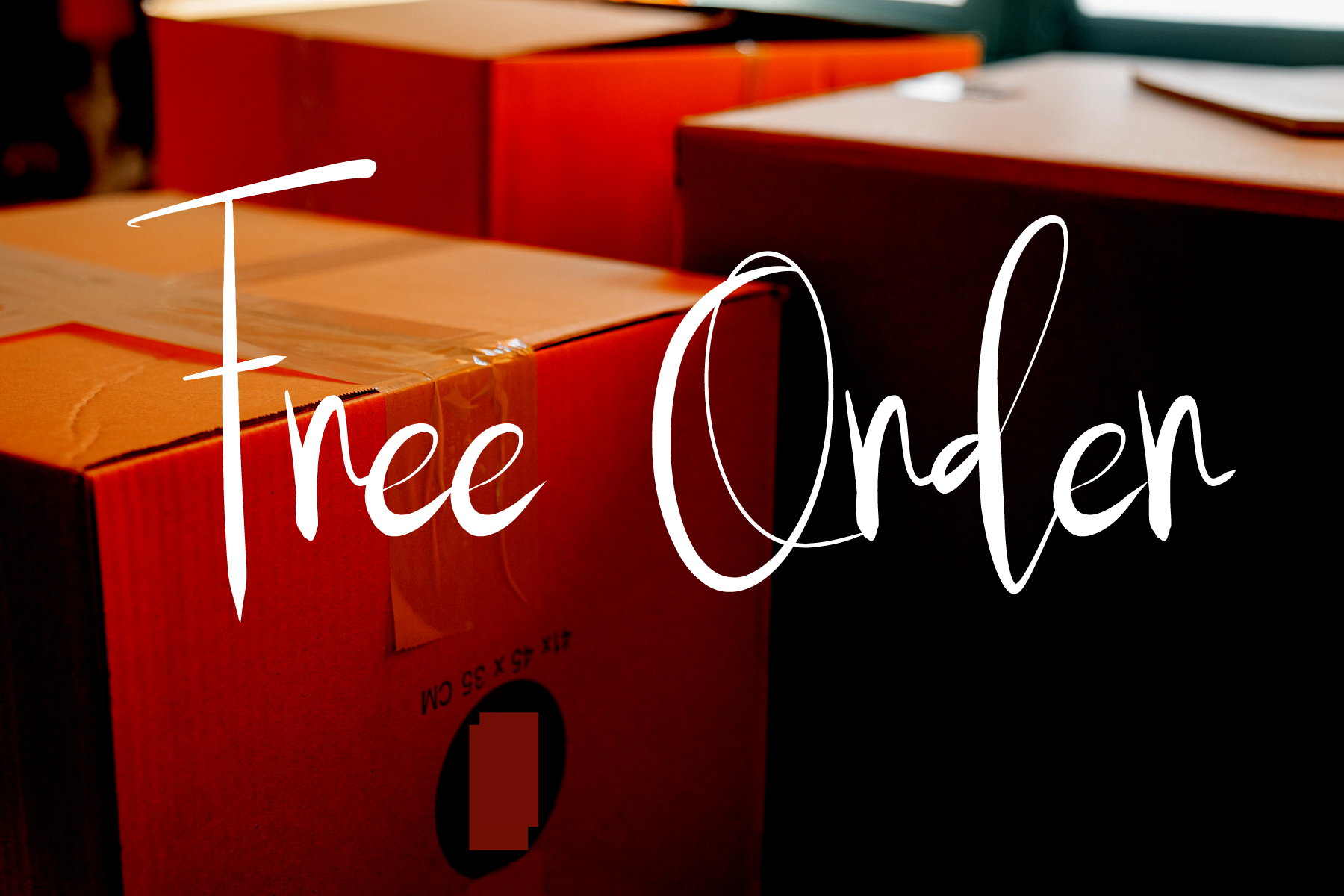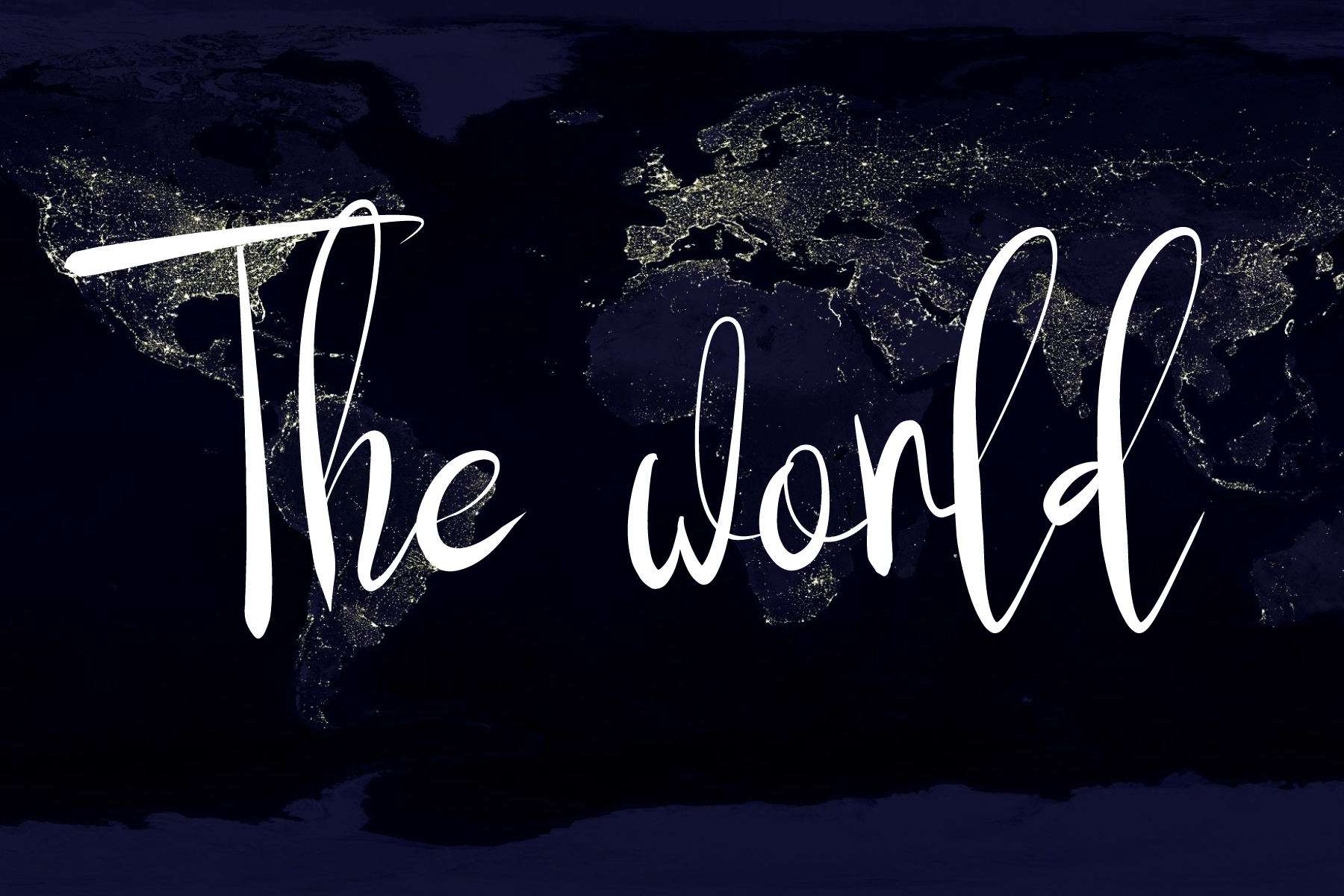
Redsea Script Font
This is a splendid script font that will impress you with its elegant and delicate letters! It goes perfectly with projects that need unique and exquisite typography!